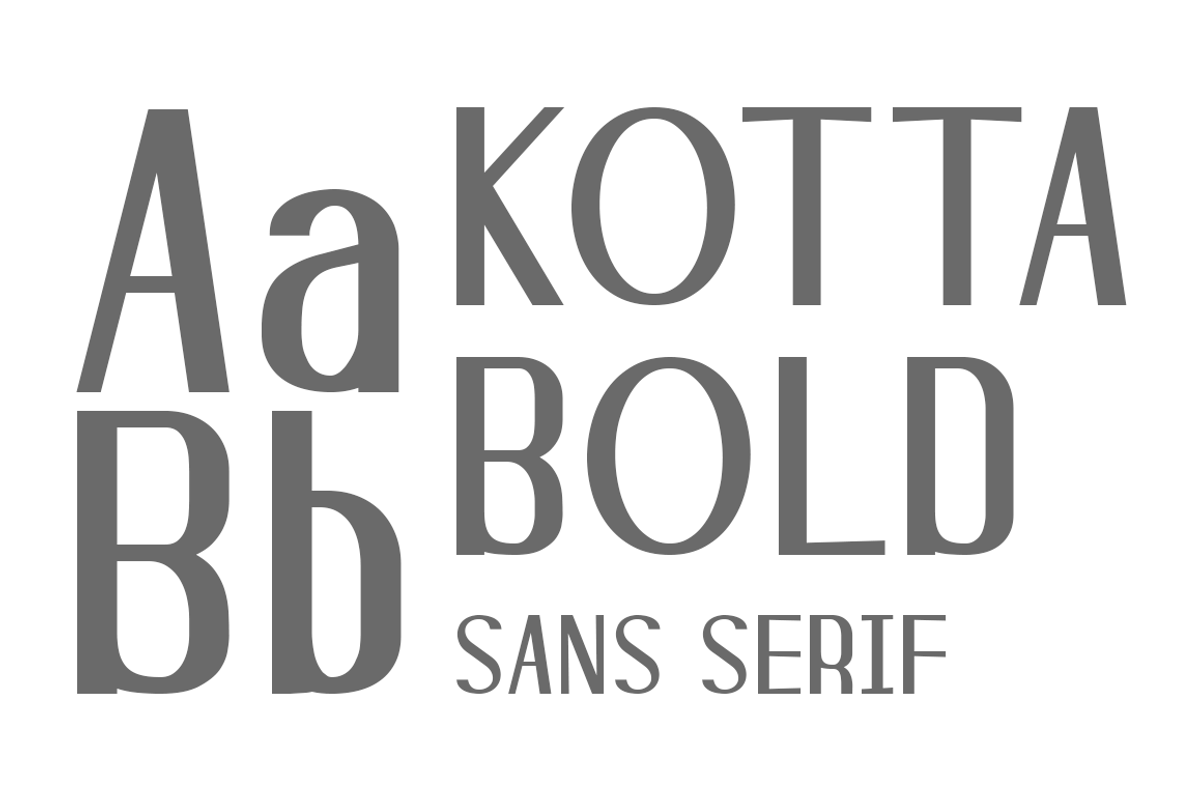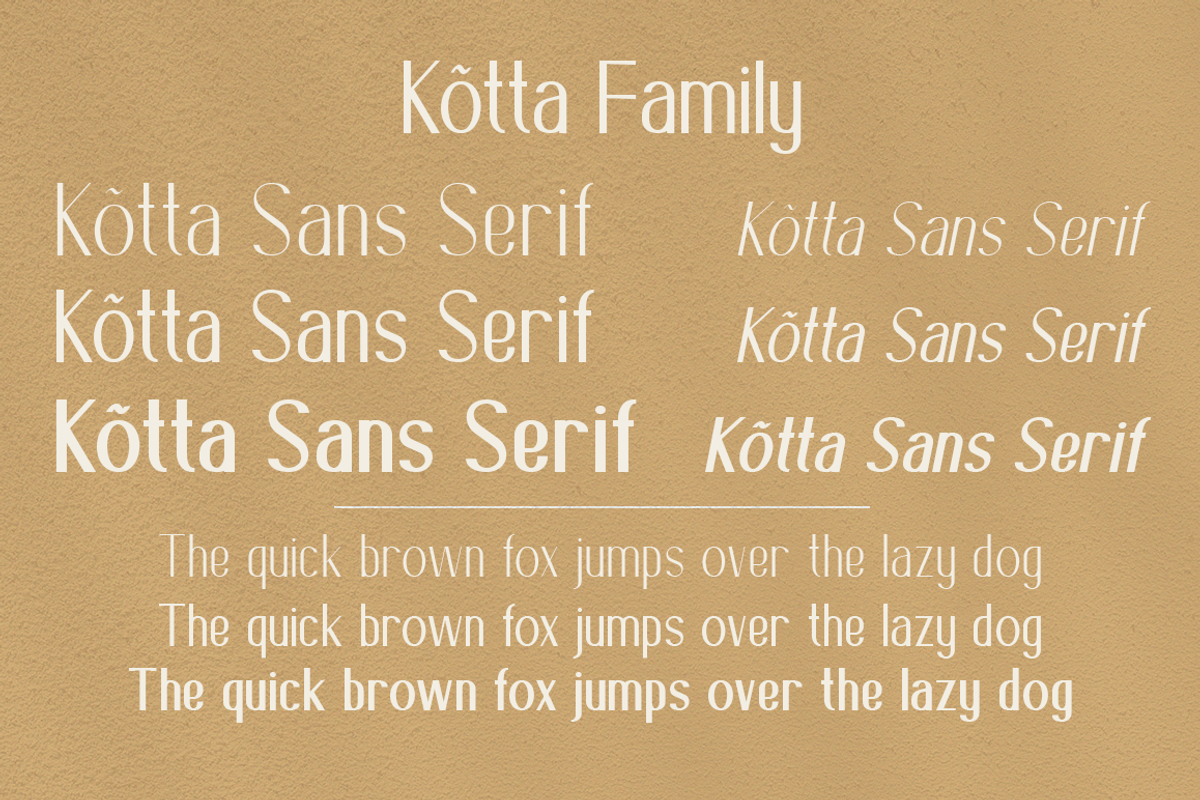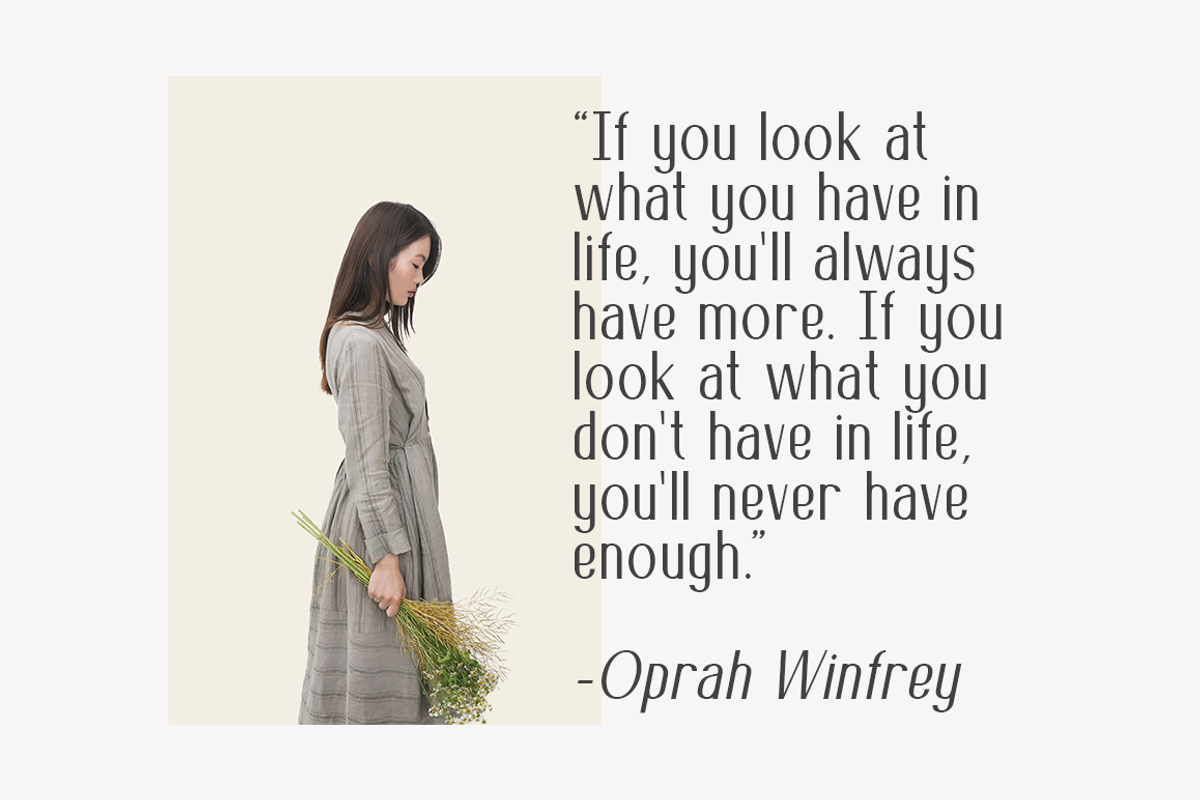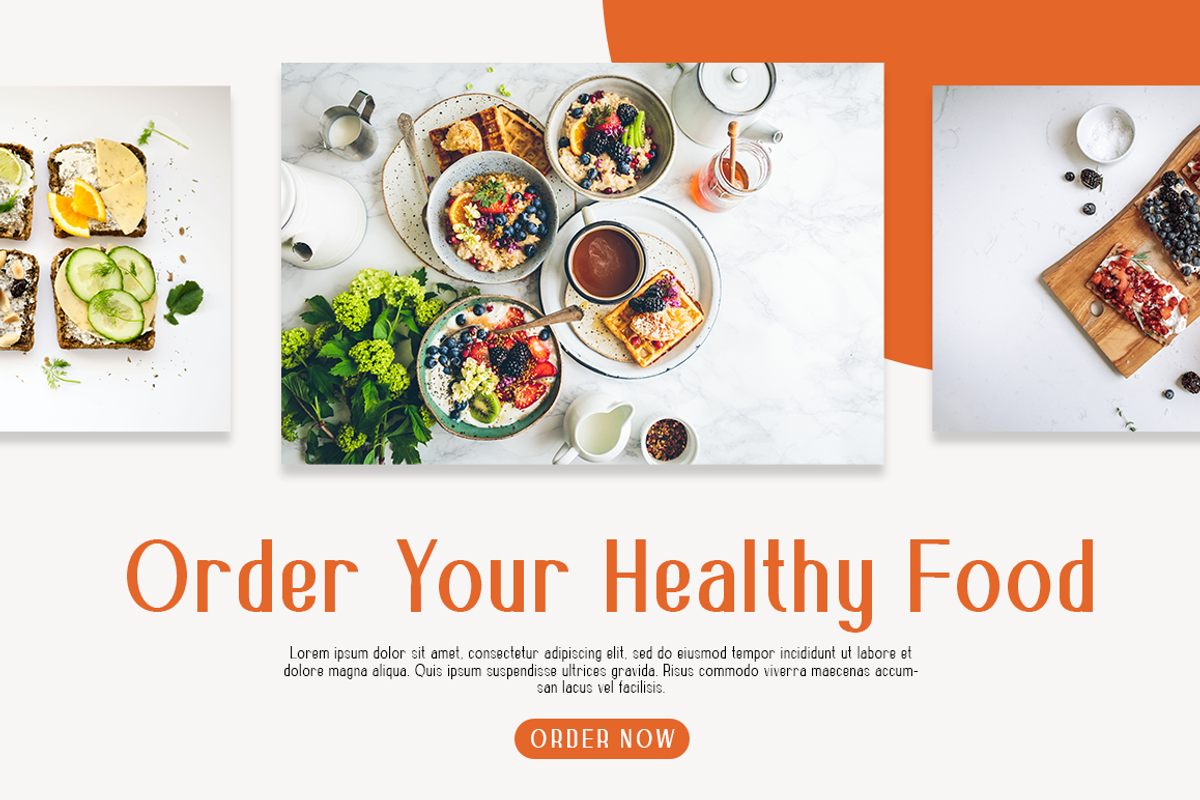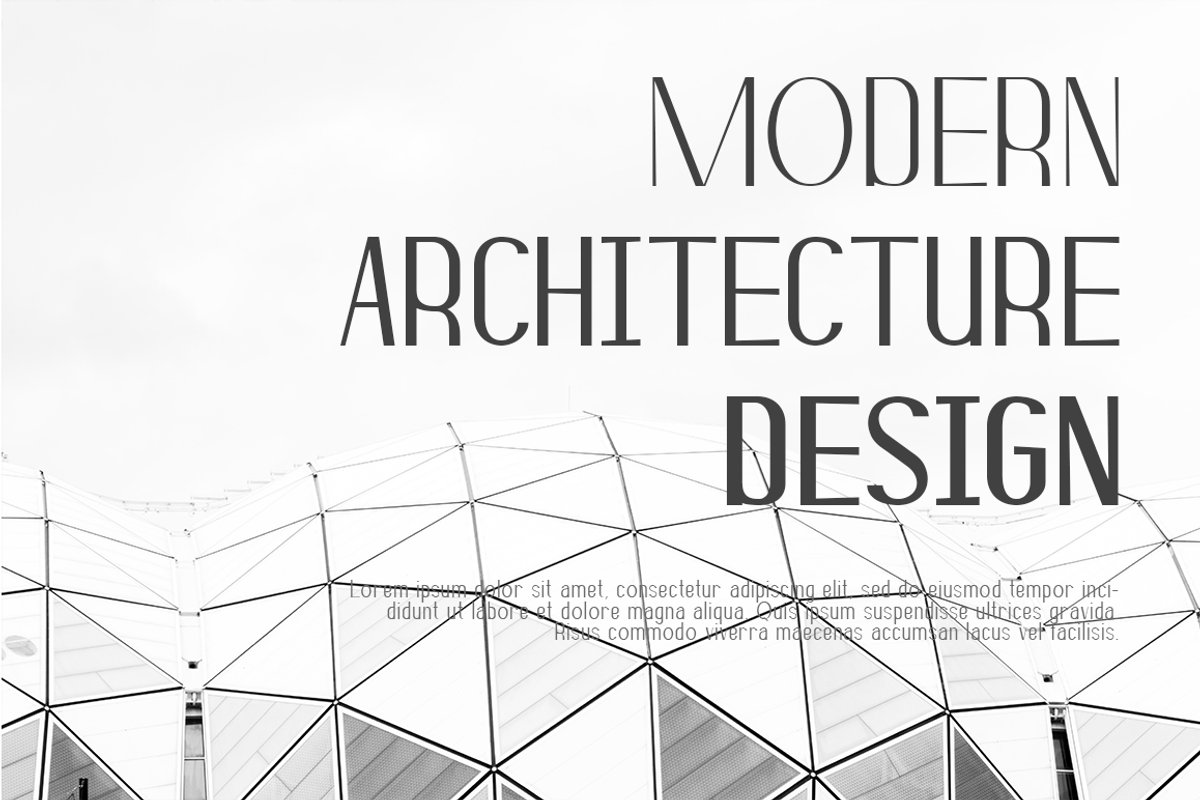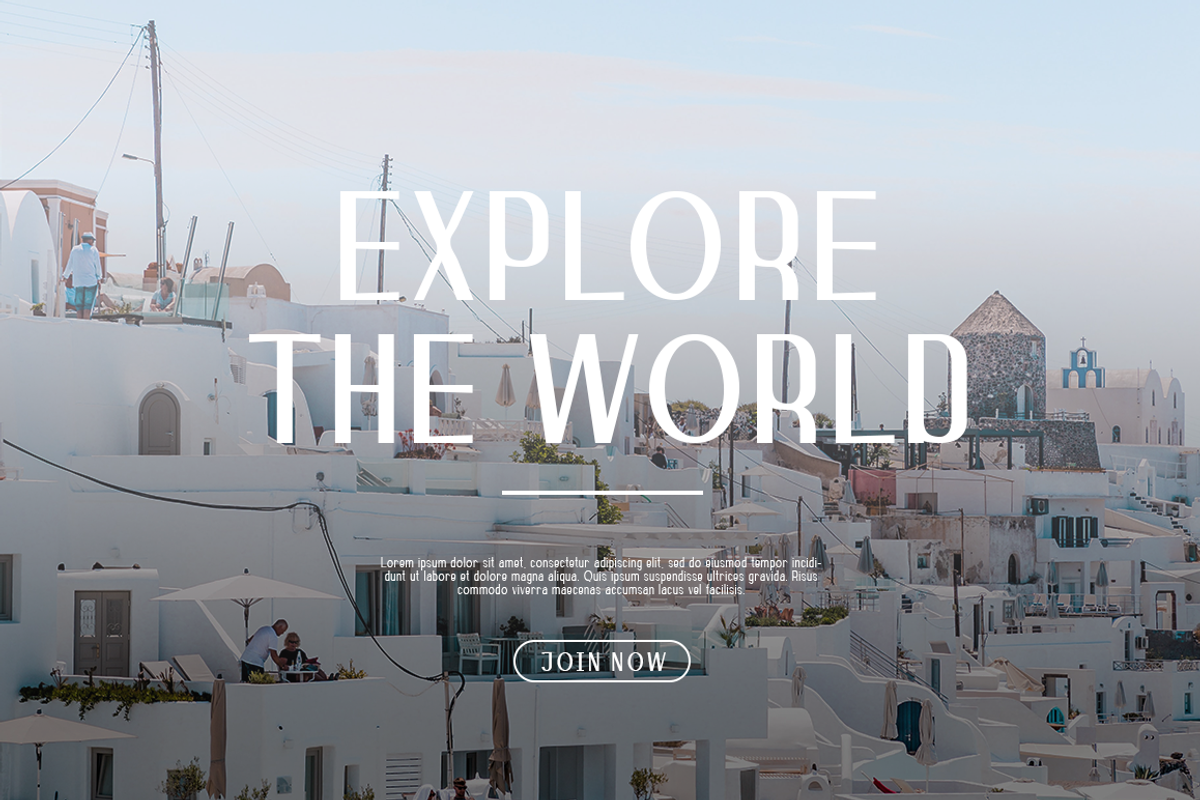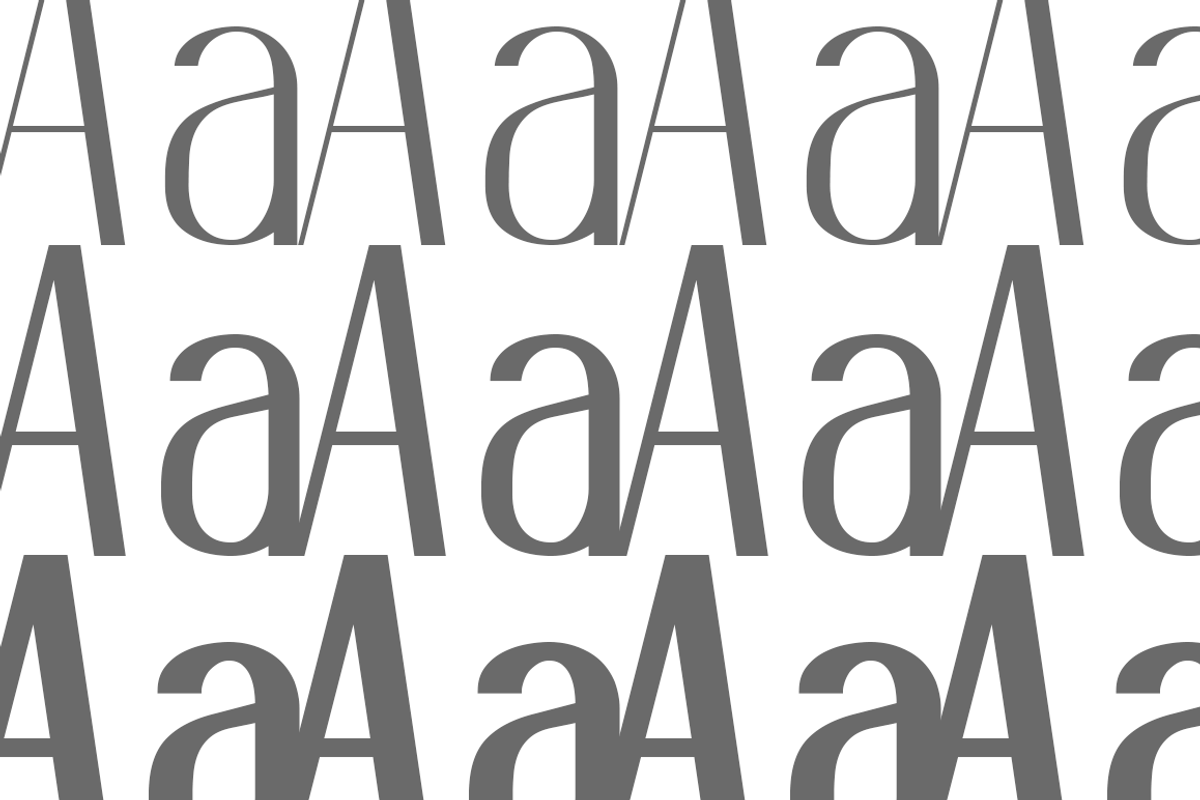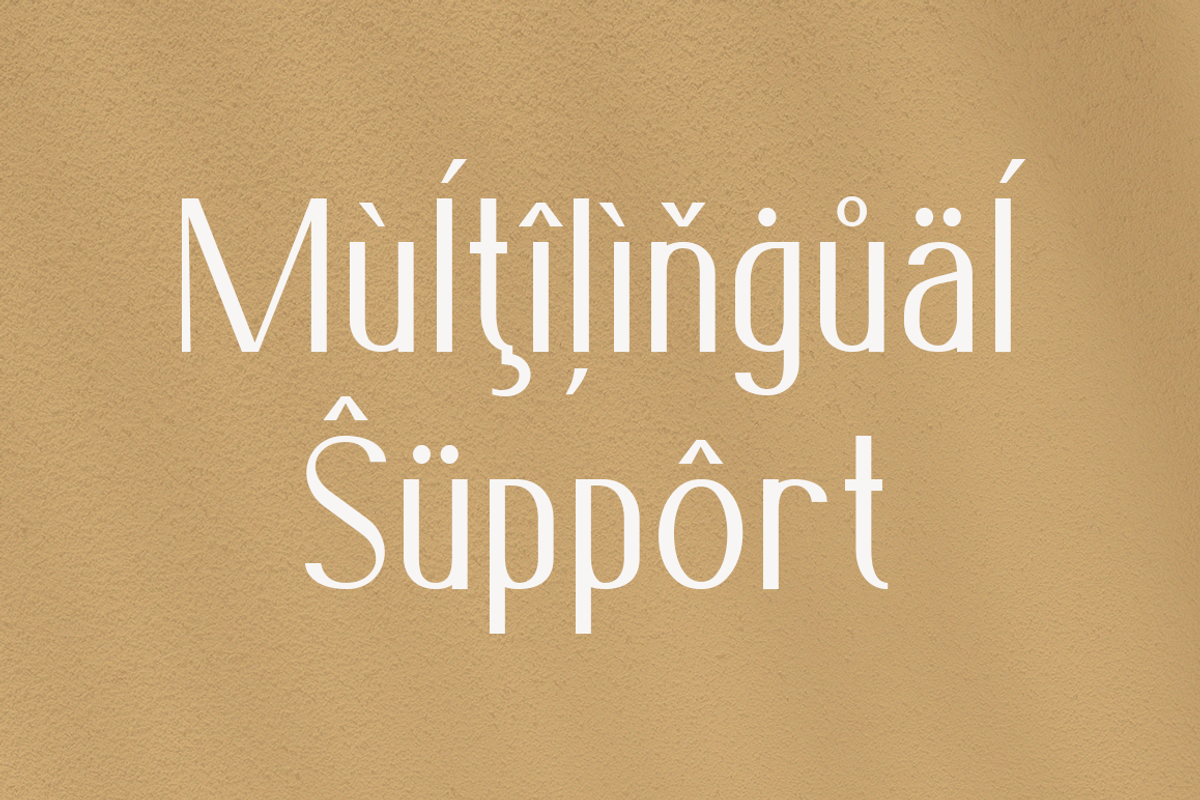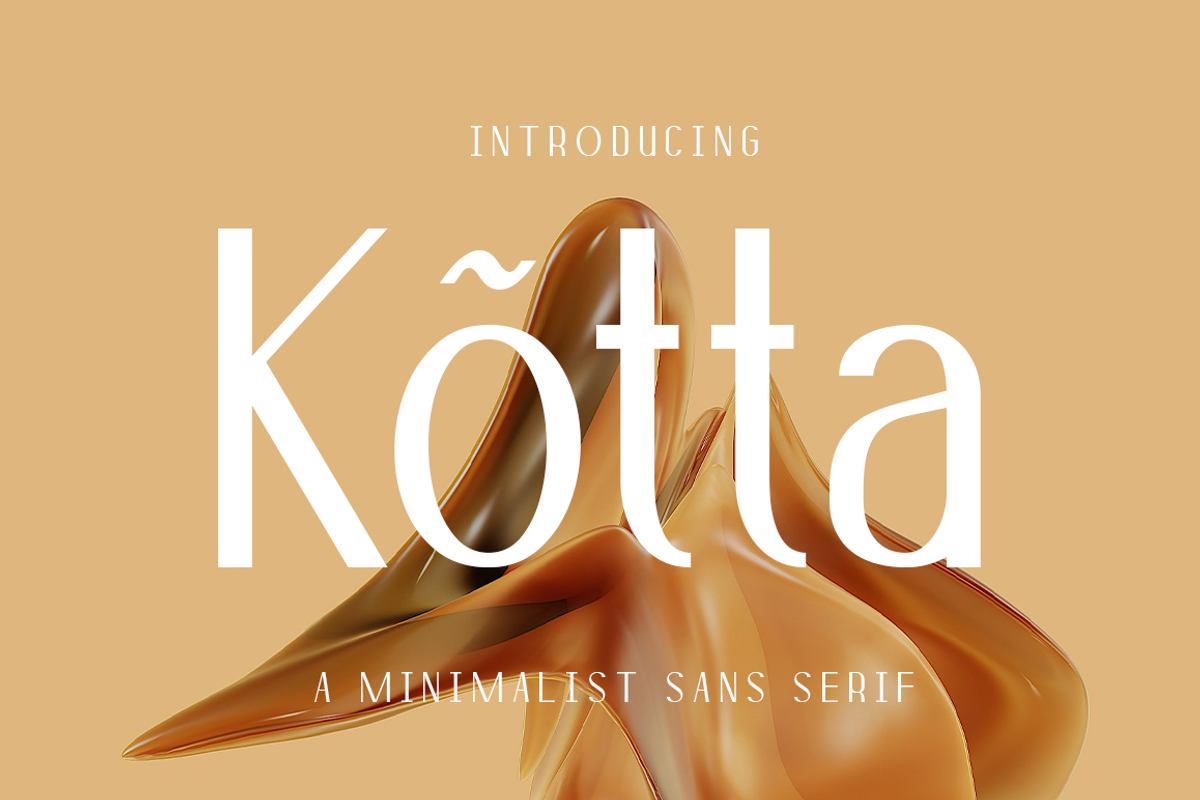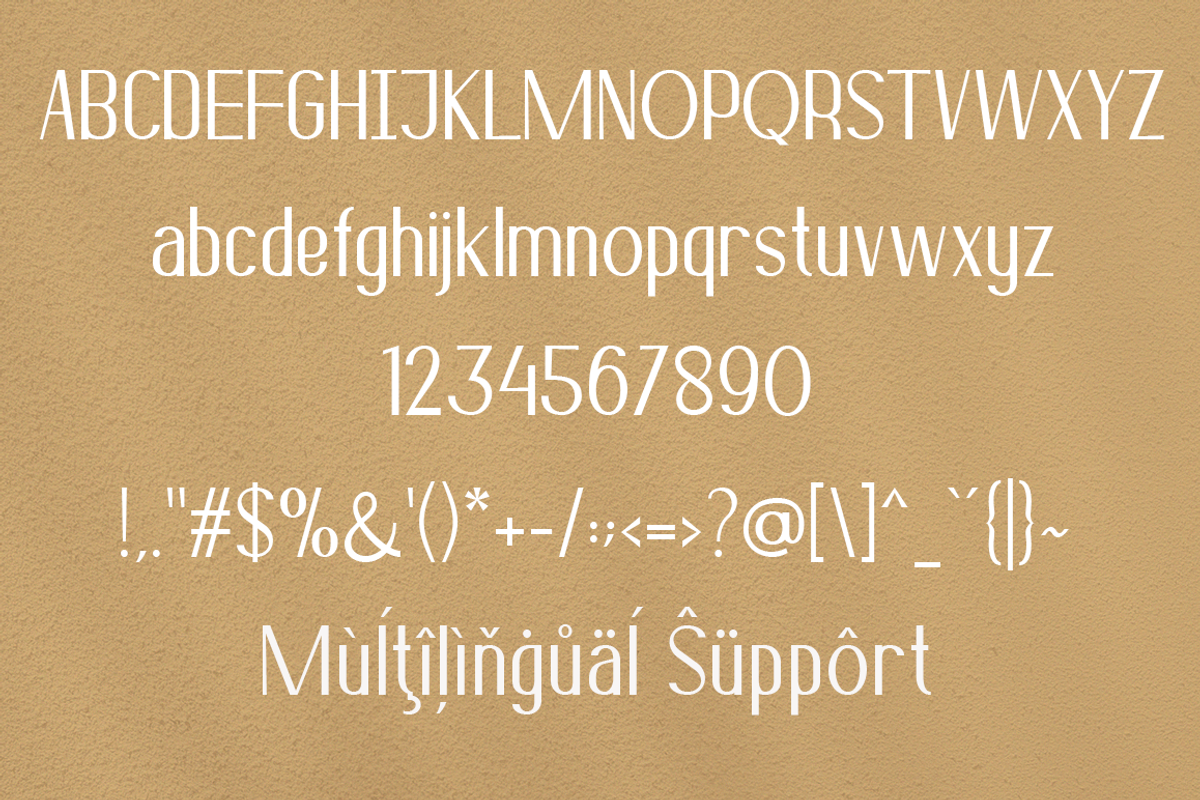
Kotta - Minimalist Sans Serif
Kotta is a modern typeface that boasts clean lines dan sharp edges. An extremely versatile font, Rome is perfect for logos, weddings, invitations, quotes, advertisements, print, magazines, and more.
- Kotta Family ( Thin, Reguler, Bold, Thin Oblique, Bold Oblique)
- Uppercase Characters
- Lowercase Characters
- Mùĺţîļìňġůäĺ Ŝüppôrt